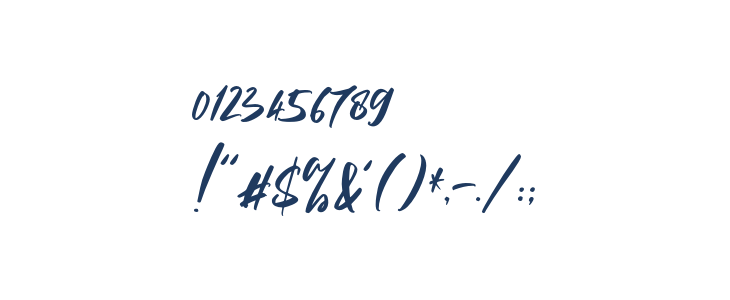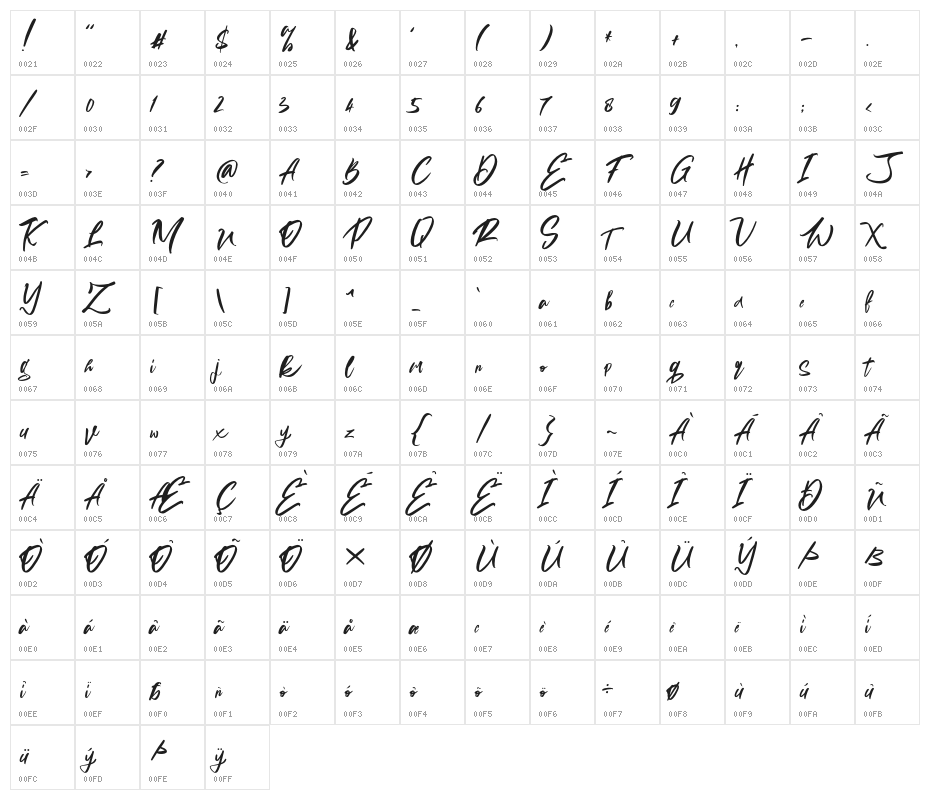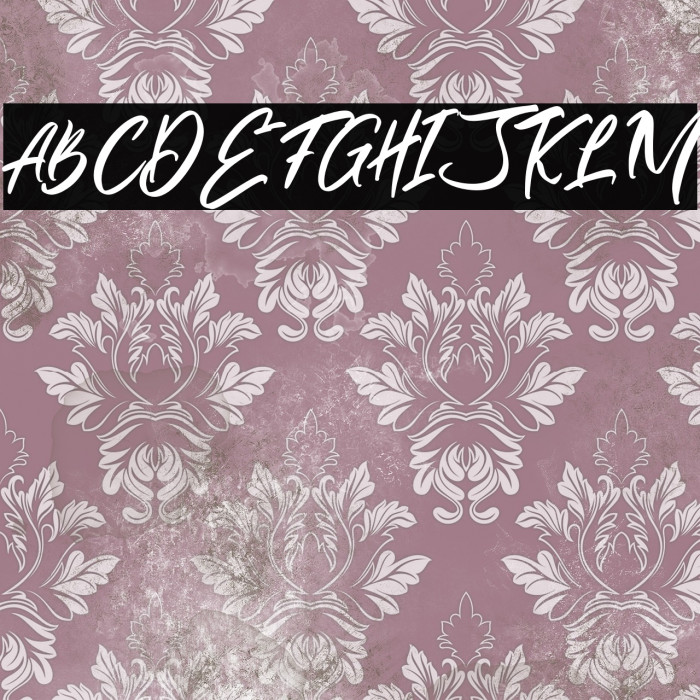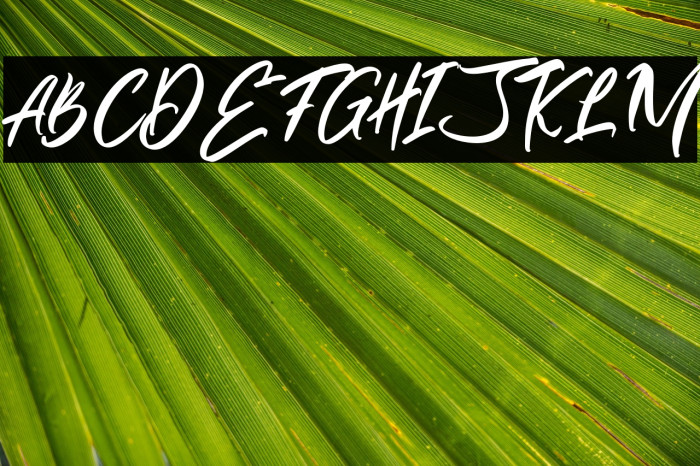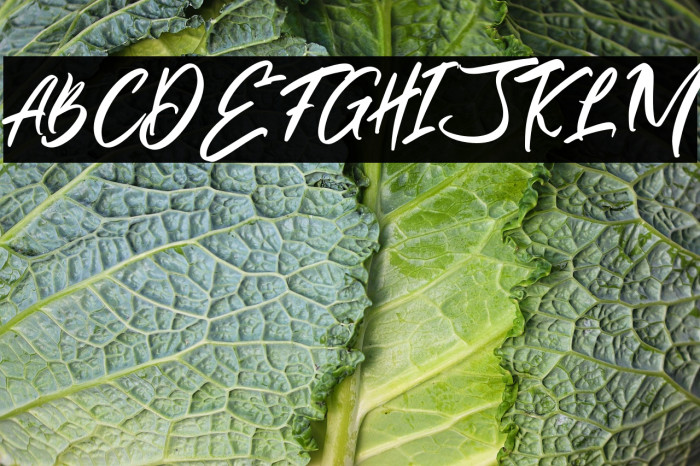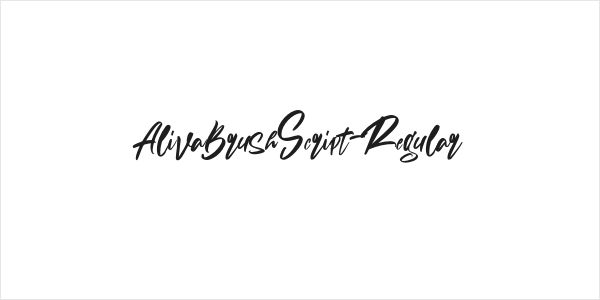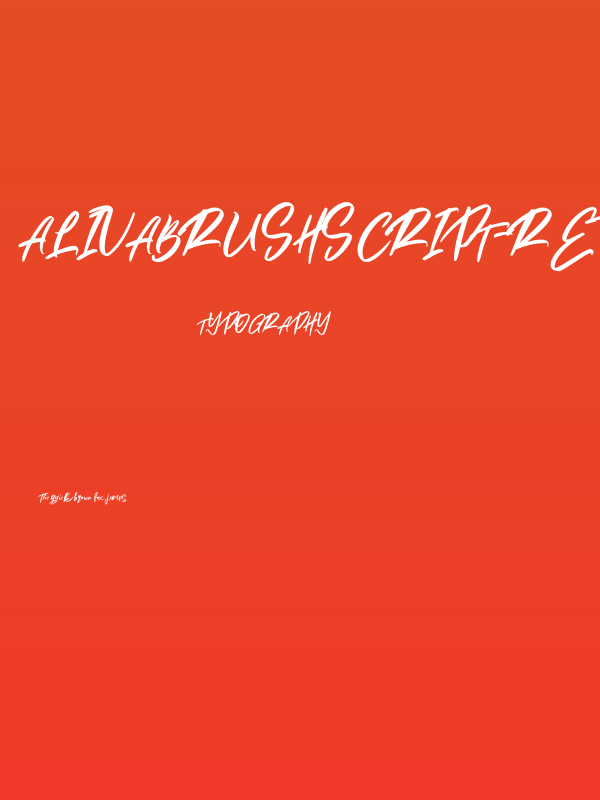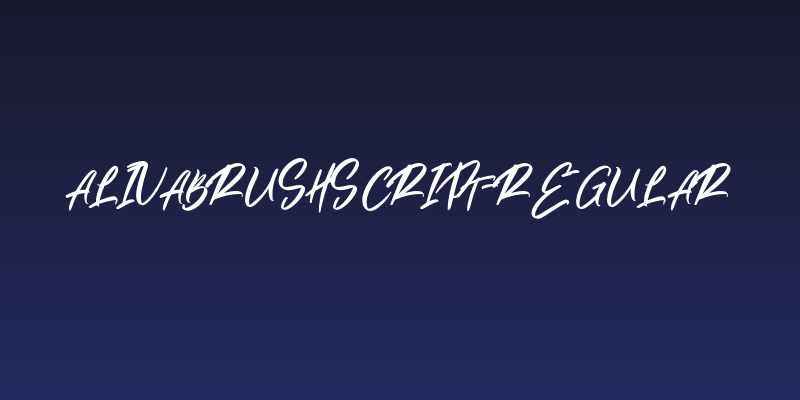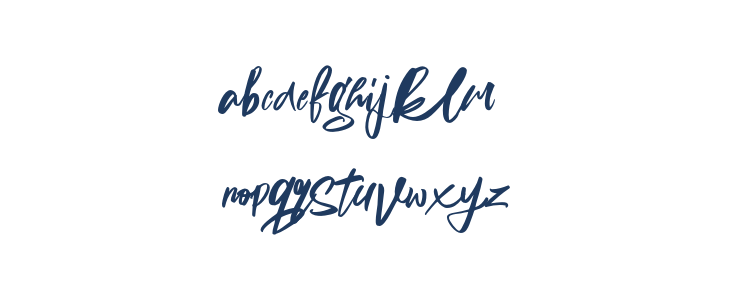
AlivaBrushScript-Regular Font
AlivaBrushScript-Regular Description
This font exudes a lively and dynamic energy, characterized by its fluid and expressive brush strokes. The letters are crafted with a natural, hand-drawn appearance, giving it a personal and artistic touch. The uppercase letters are bold and sweeping, while the lowercase letters maintain a consistent flow, enhancing readability. The numbers and special characters are equally expressive, maintaining the overall aesthetic. This font is perfect for projects that require a personal, creative flair, such as invitations, posters, or branding materials.